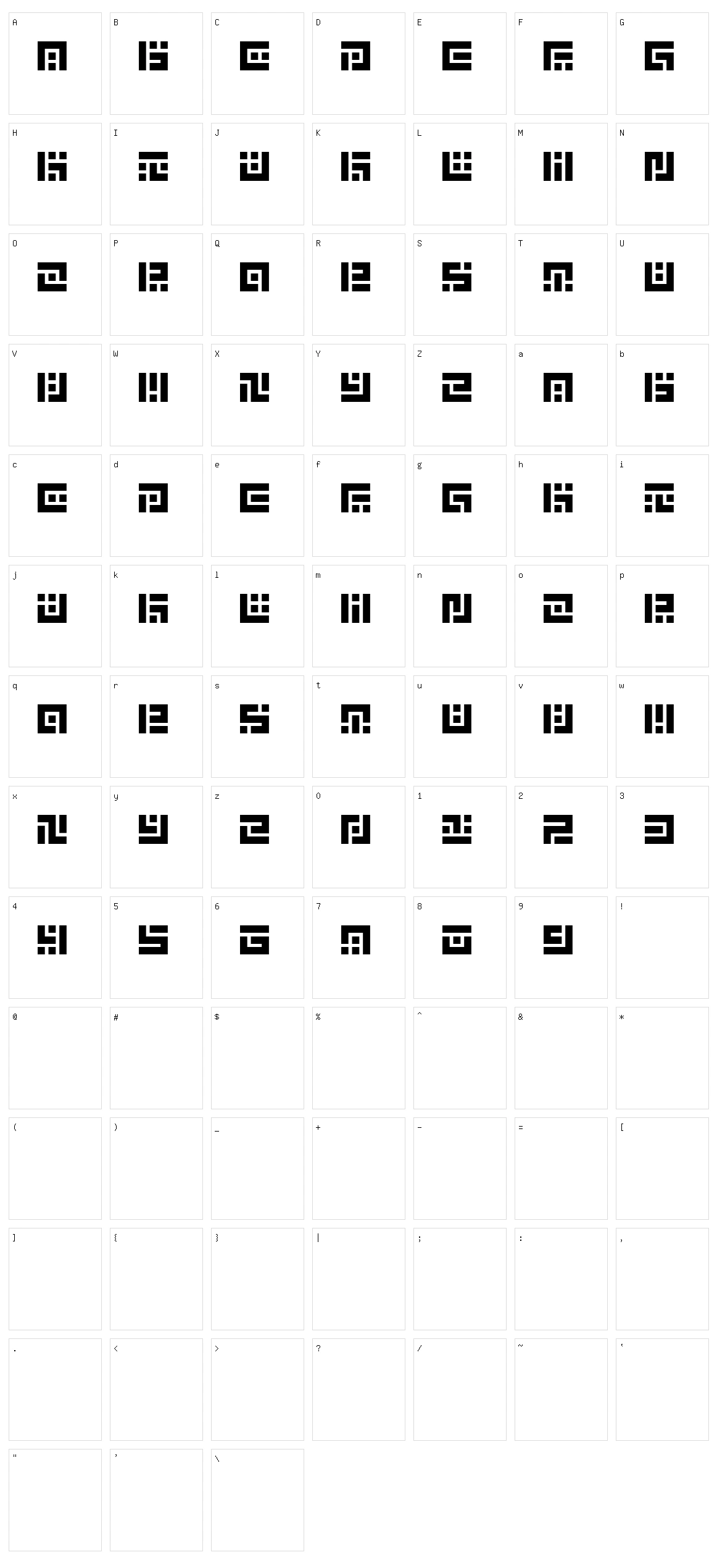
The free font Symvola is carefully designed by Aleksandr Savenkov, showcasing a thoughtful balance of creativity and usability and falls under the Square font style. When you download the ZIP file, it contains only 20.34 KB of font files, making it lightweight and quick to download. Please review the license details below to understand permitted usage and distribution rights. If license information is not available, we recommend using this font for personal projects only or contacting the author directly for commercial usage permissions.